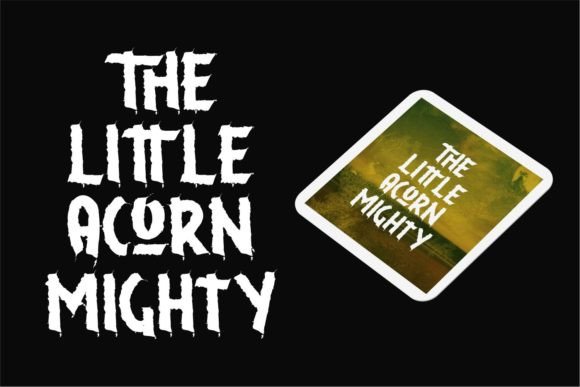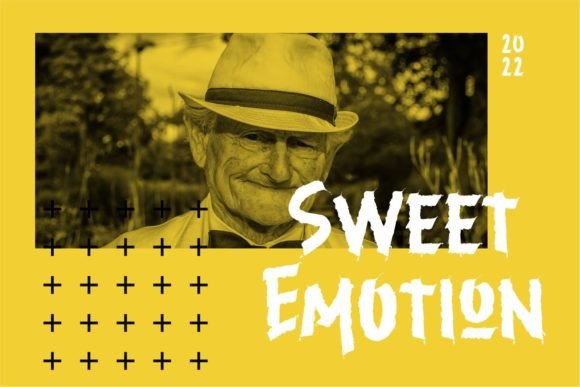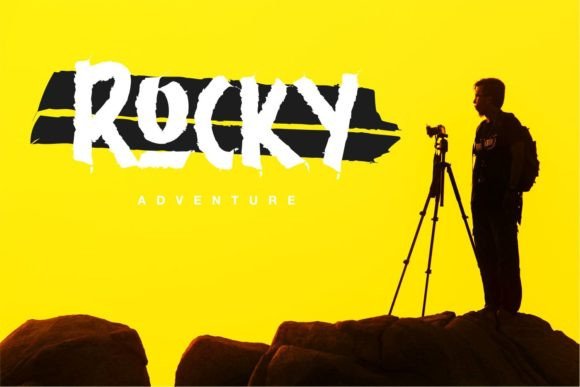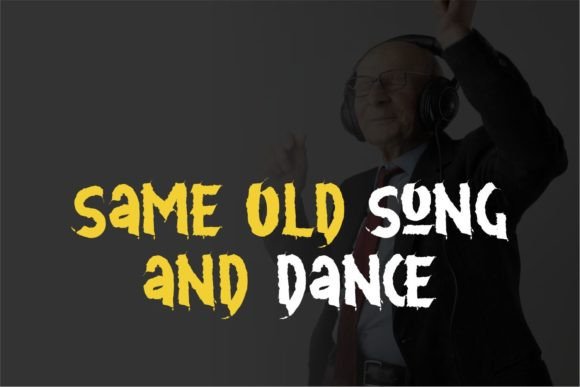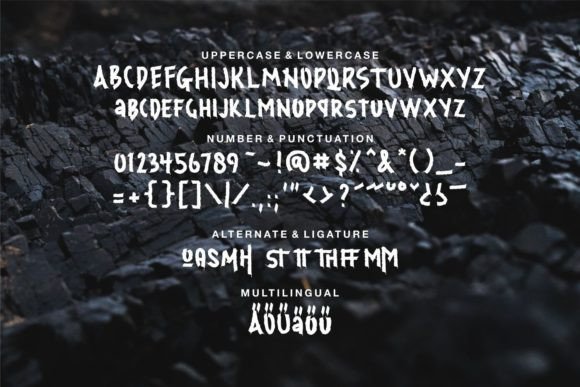
Introducing Commot Font: Elevate Your Craft with a Modern Brush Display Font
In the world of design, fonts play a crucial role in conveying the message and aesthetic of a brand or product. For crafters, designers, and entrepreneurs looking to make their mark stand out from the competition, selecting the right font can be a game-changer. This is where Commot Font comes into play – a modern and unique brush display font designed to enhance your craft with little effort, making your product shine in a crowded marketplace.
What is Commot Font?
Commot is a contemporary brush display font that brings a fresh and distinctive touch to any design project. Its unique brush strokes and modern aesthetic make it an ideal choice for designers and crafters aiming to add a personal and creative flair to their work. Whether you’re designing logos, branding materials, packaging, or digital content, Commot Font offers the versatility and style to elevate your creations.
Key Features of Commot Font
- Unique Brush Strokes: Commot Font boasts authentic brush strokes, giving your text a handcrafted feel that’s both personal and engaging.
- Modern Aesthetic: With its clean lines and contemporary design, Commot is perfect for projects that demand a modern edge.
- Versatility: This font is highly versatile, suitable for a wide range of design applications, from digital media to print.
- Easy to Use: Commot Font is designed to be user-friendly, allowing designers of all skill levels to incorporate it into their projects with ease.
For designers and crafters, Commot Font offers several benefits that can significantly impact the success of their projects:
- Differentiation: In a sea of generic fonts, Commot helps your work stand out, giving your brand or product a unique identity.
- Professionalism: Despite its creative and handcrafted look, Commot Font maintains a level of professionalism suitable for a wide range of applications.
- Efficiency: With Commot, you can achieve a high-end look without spending hours on custom design, saving you time and effort.
- Inspiration: Commot’s distinctive style can serve as a source of inspiration, helping to spark new ideas and creativity in your design process.
Commot Font is a powerful tool for designers and crafters looking to add a modern and unique touch to their work. Its blend of authentic brush strokes and contemporary design makes it an excellent choice for those aiming to stand out in a competitive market. With its ease of use, versatility, and distinctive style, Commot Font is poised to become a go-to typeface for creatives seeking to elevate their craft and make a lasting impression.